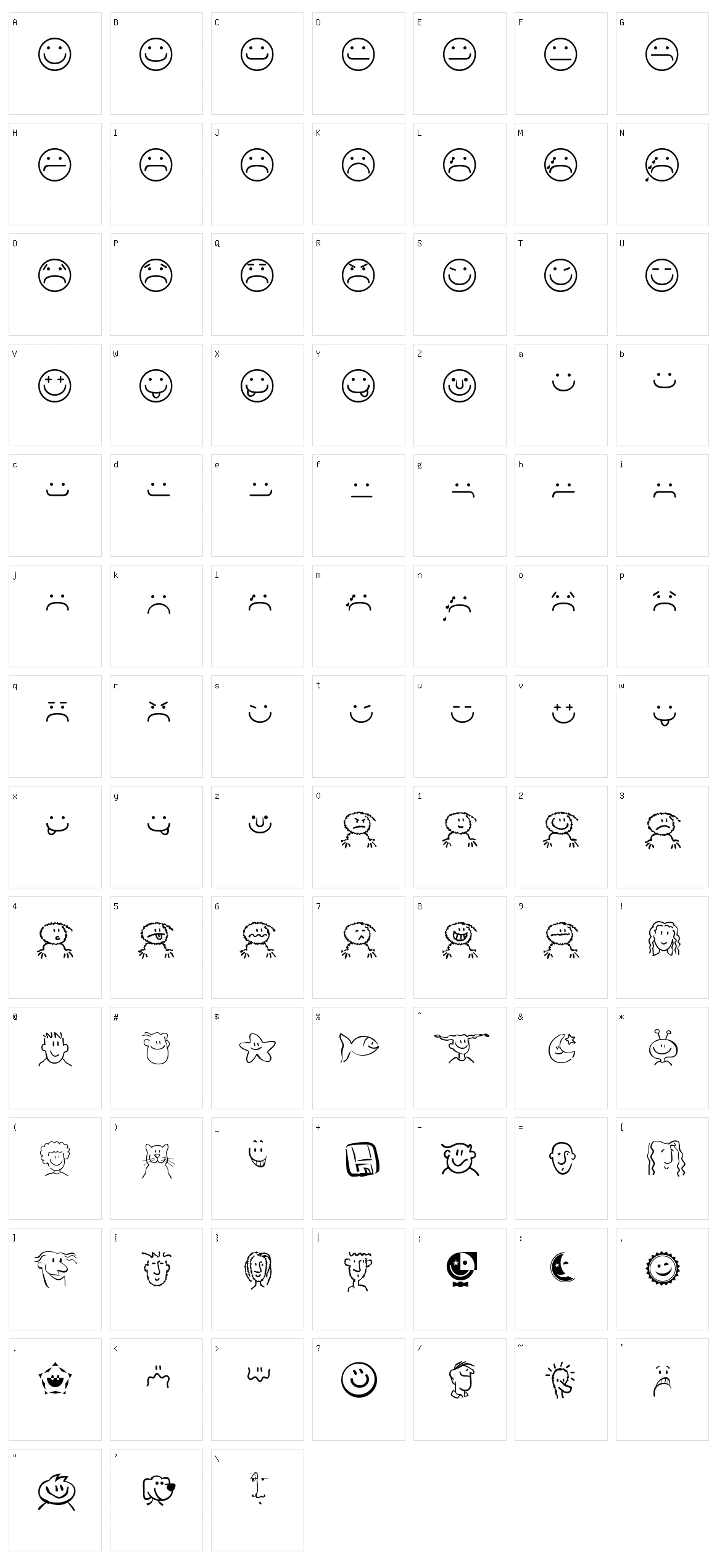
Just what you've been waiting for--a "smiley face" font! Now its
possible to attach smiley faces in your documents without lifting
a pen. Over 100 characters filled with happy, sad, angry,
confused, and silly faces. You can convert the characters to
outlines in Illustrator, Freehand, or Canvas and edit to your
hearts content!
Version 2.0 (released 9/16/93) includes REVERSED (white is black)
smiley faces and a number of freeform smiley faces (including a
smiling cat, smiling fish, and a smiling alien!).
Version 2.1 (released 6/9/94) includes additional freeform smiley
characters (including a computer, a dog, the sun, and others).
Version 2.2 (released 12/1/95) includes 10 additional smiley
characters. Six are "freeform" characters and four are
geometric/abstract characters.
Version 2.3 (released 4/19/96) includes additional characters and
a bug fix that didn't allow version 2.2 to print (Mac/Windows) or
Version 3.0 (released 6/28/97) adds 14 more smilies drawn with a
"rough" look. These characters are best viewed at 60 points or
higher. A few of the characters have been moved to make room
for the new smileys. Specifically, the smileys found under
numbers 0-9 have been moved to other slots. Also, the standard
smiley characters ("a-z", "A-Z") have been made a little
thicker to display better on computer monitors.